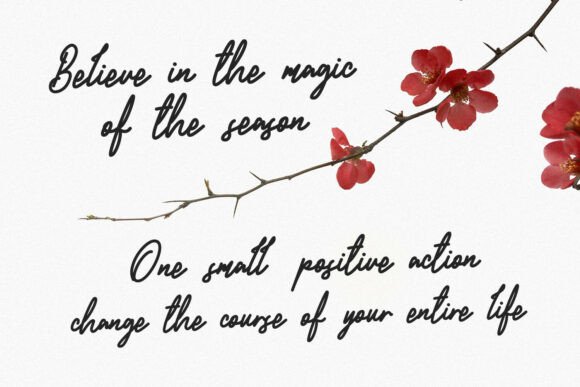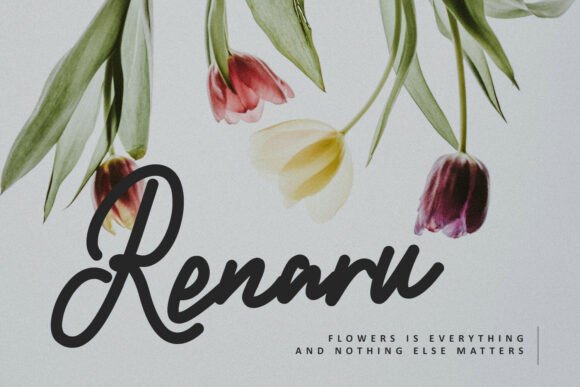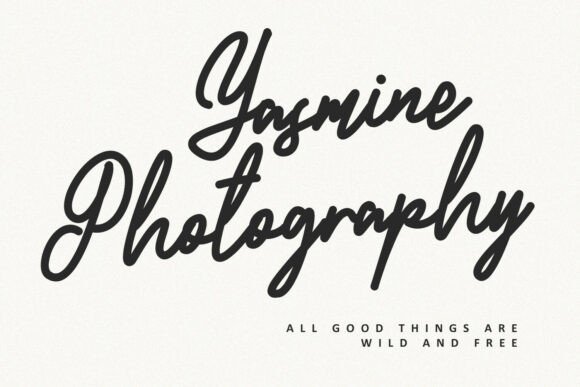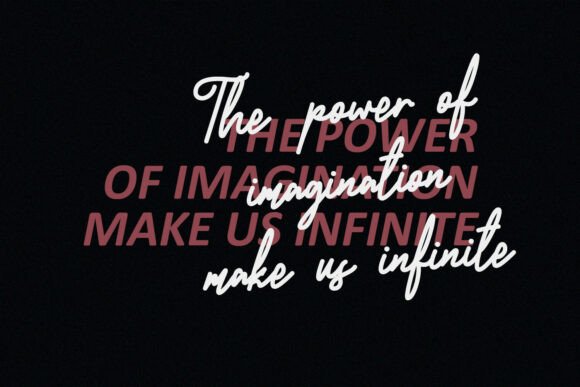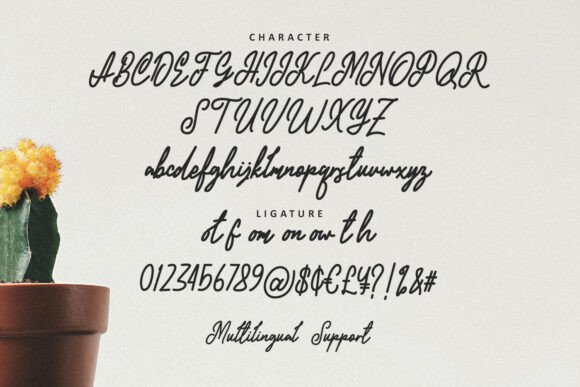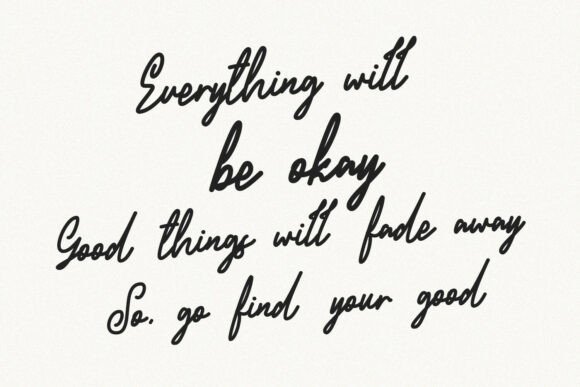
Introduction to Lighty Kelghed Font
Lighty Kelghed is a stylish monoline script font that strikes a perfect balance between playful energy and organic elegance.
Characterized by its consistent stroke weight and fluid, rhythmic transitions, this font captures the essence of modern hand lettering with a sophisticated twist It features a comprehensive set of characters, including unique ligatures that enhance its natural, handwritten flow.
Key Features of Lighty Kelghed Font